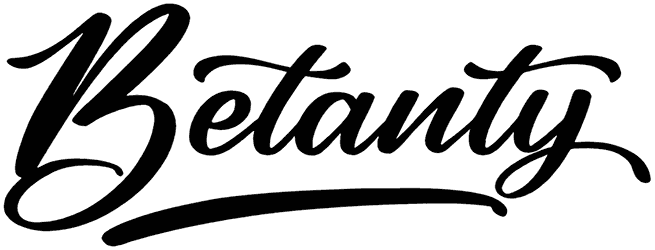
Betanty Font
Need to have tastier headers? We have the sweetest one for you. Cook better greeting cards, branding, banners, or album covers by having this well-designed ingredient. With a confidential design, start the aesthetic effects of the Betanty font, to level up your projects.
This wedding font works perfectly for fitting the bill in all kinds of graphics due to its feminine trace. Thanks to our website, get all creative and make up your own.